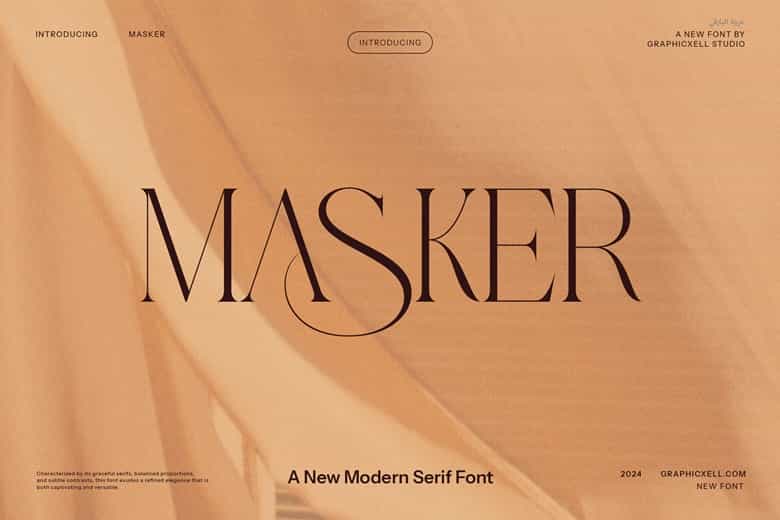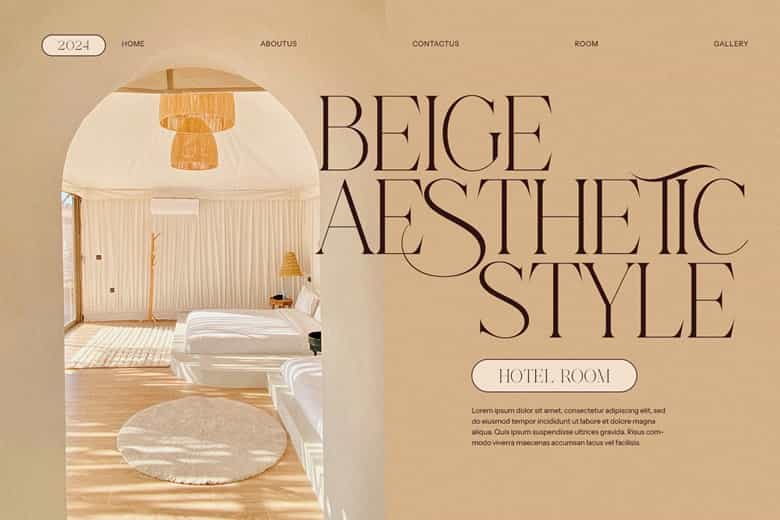
Masker is a new elegant and stylish serif font that gives a contemporary look. Not only does it look smart, but it also looks cute. What makes it so unique is the fact that it has a flowing design with some amazing curves through it. The classy ligature also becomes one of its characteristics and appeals.